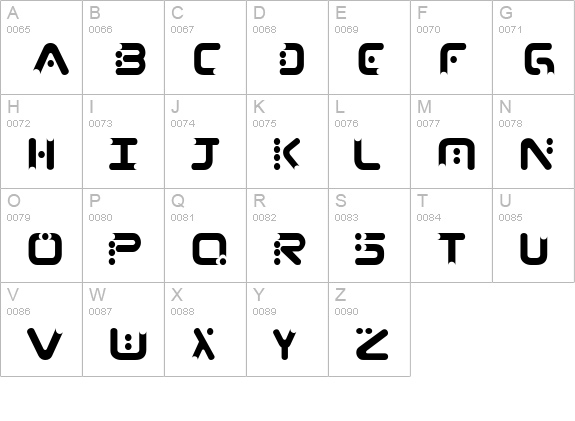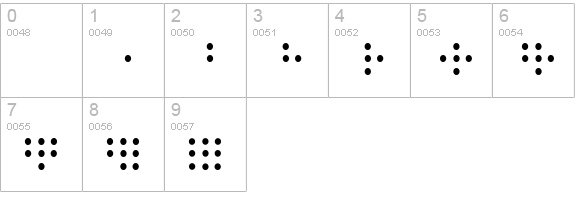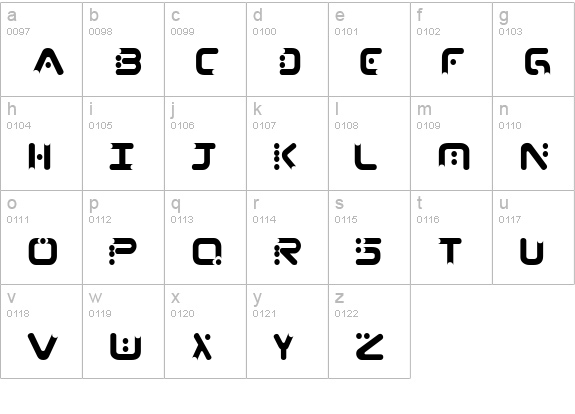
13_Roshi Font Details
13_Roshi font is a stylish and modern typeface that exudes elegance and sophistication. With its sleek lines and contemporary design, this font is perfect for a wide range of projects, from branding to editorial design. The clean and minimalistic aesthetic of 13_Roshi font makes it versatile and easy to read, making it ideal for both print and digital applications. The best part? 13_Roshi font is available for free download at FontsMarket.com. This means you can easily access this beautiful font and use it in your projects without any cost. Whether you're a designer looking to add a touch of class to your work or a business owner wanting to enhance your brand's image, 13_Roshi font is the perfect choice. Download it today and elevate your designs with this stunning typeface.